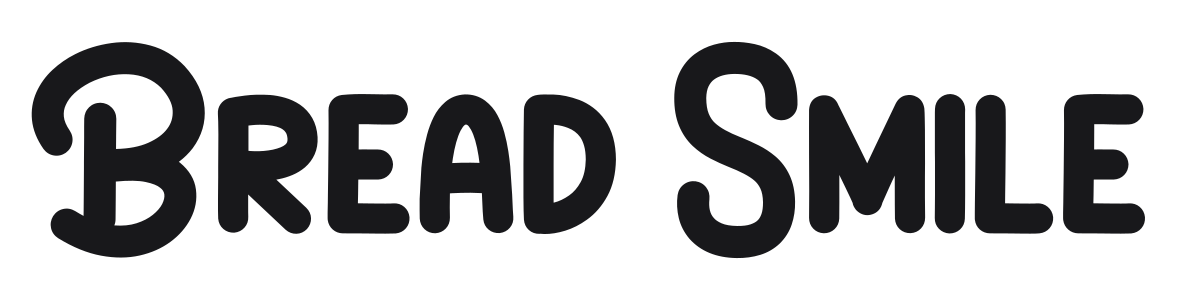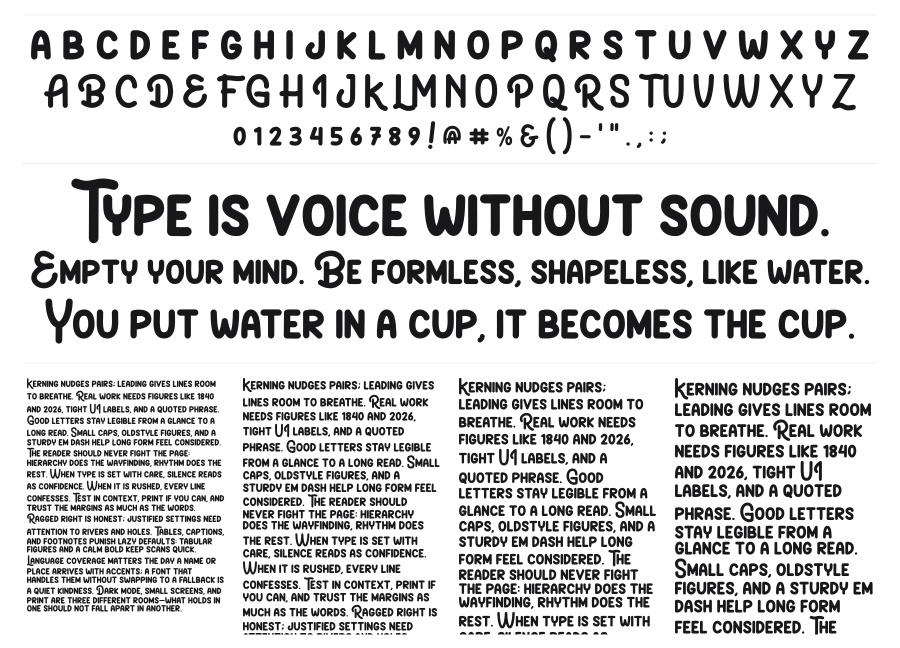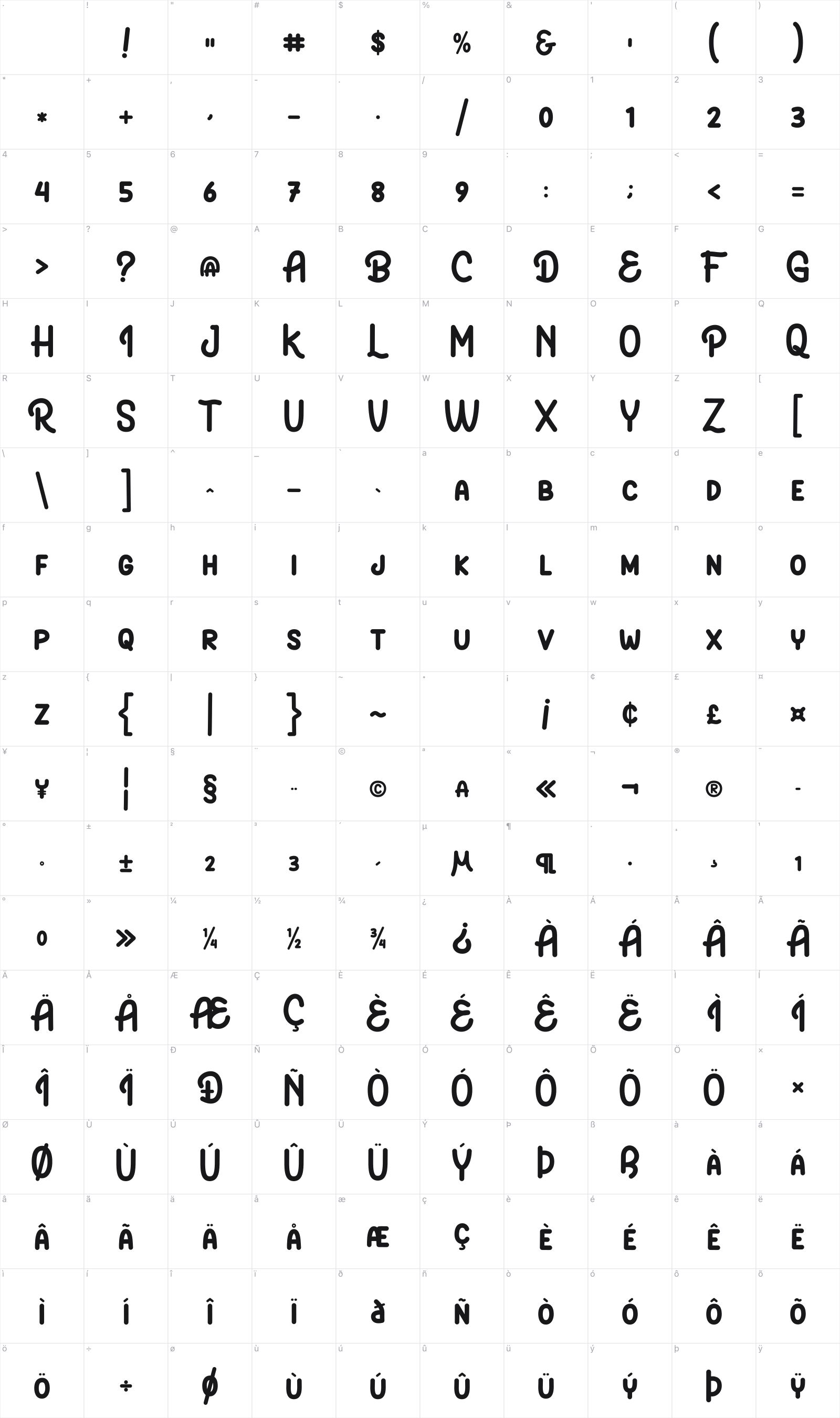
Bread Smile
Bread Smile is a bold rounded sans with soft, inflated terminals and a warm, playful character. Its wide proportions and even weight give it an approachable, almost edible quality that feels right at home on food packaging, children's media, or casual branding. The slightly organic construction keeps it from feeling mechanical.